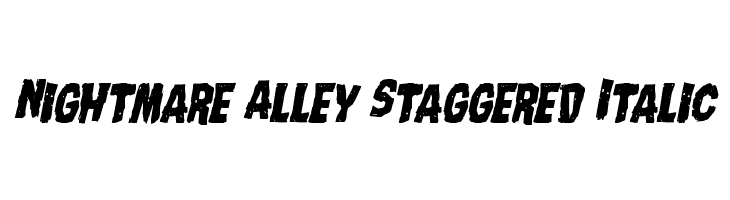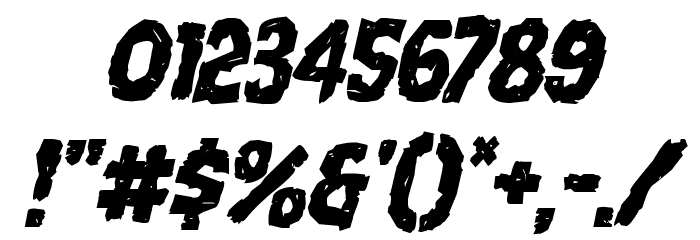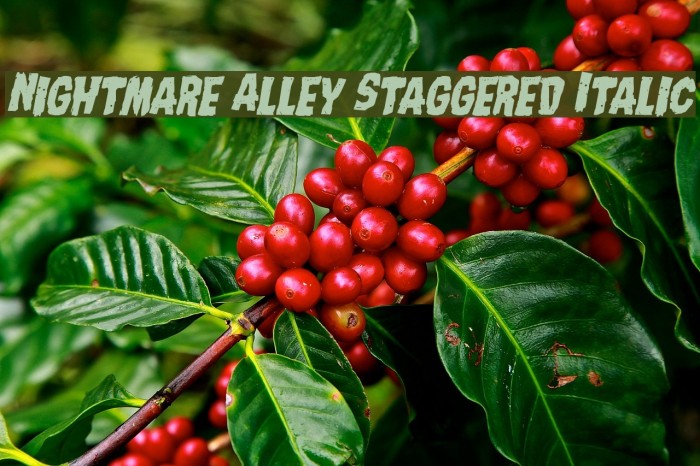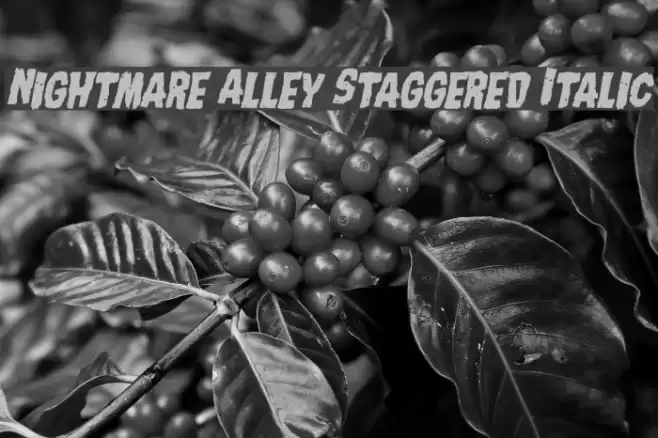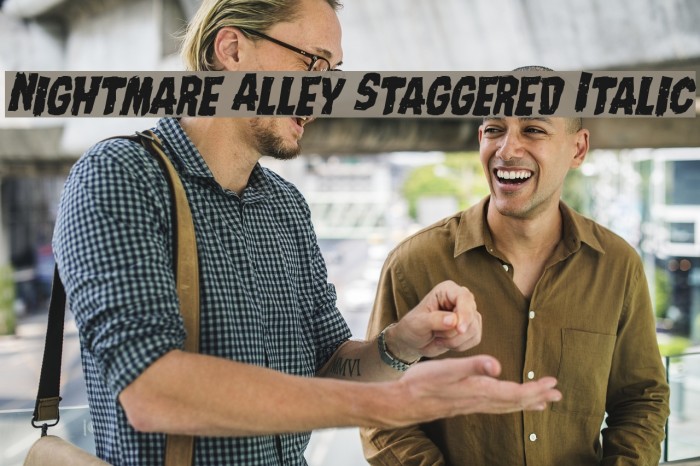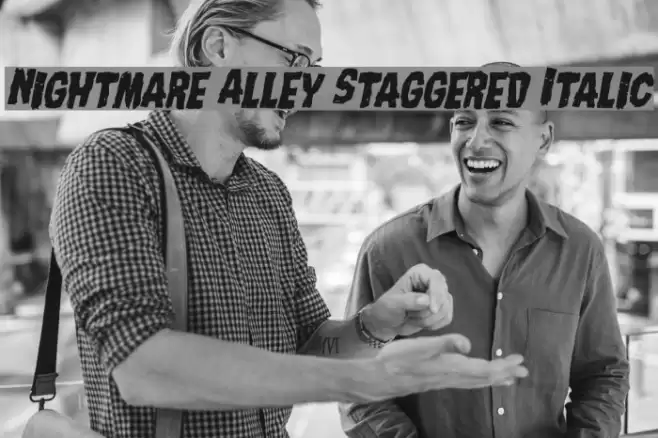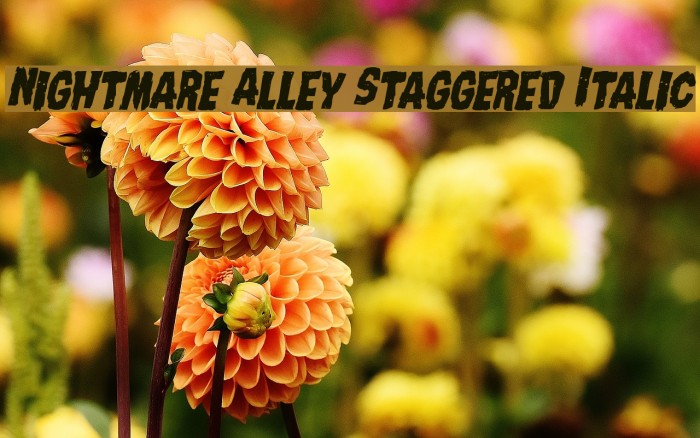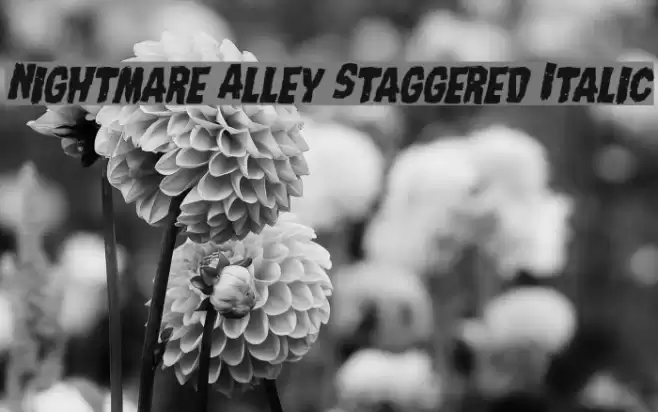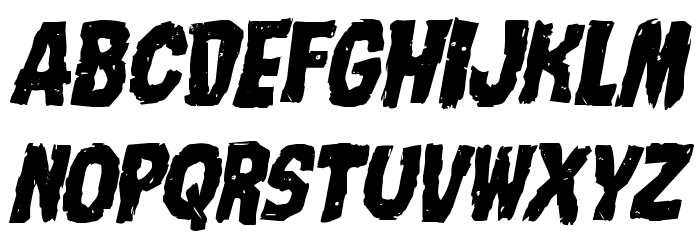
Nightmare Alley Staggered Italic Font
Nightmare Alley Staggered Italic Description
This font exudes a bold and rugged aesthetic, characterized by its distressed and staggered appearance. The letters are heavily textured, giving them a weathered and gritty look, reminiscent of vintage horror or thriller movie posters. The italic slant adds a dynamic and energetic feel, enhancing its dramatic impact. Each character is uniquely crafted with irregular edges and a rough finish, contributing to its overall chaotic and intense style. The font maintains a consistent weight throughout, ensuring readability despite its decorative nature. Its unique design makes it stand out, perfect for creating an eerie or unsettling atmosphere.
| Overall Style | Vintage, Decorative |
| Proposed Projects | Ideal for horror movie posters, Halloween event flyers, video game titles, and themed merchandise. |